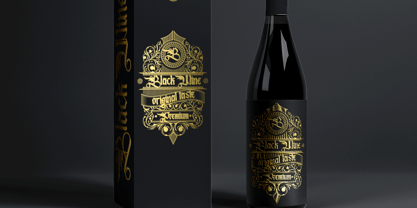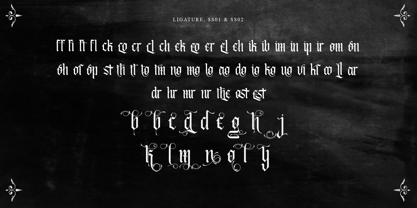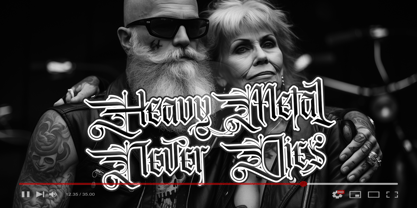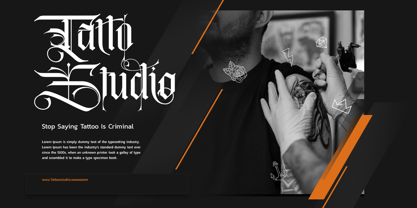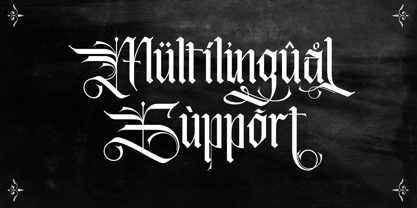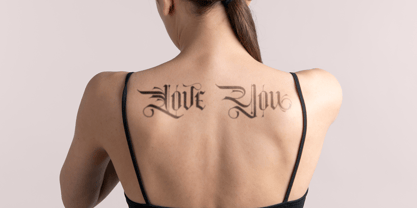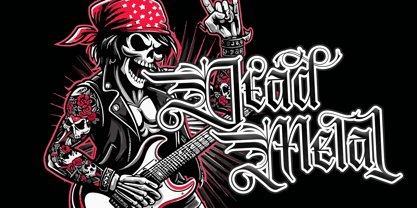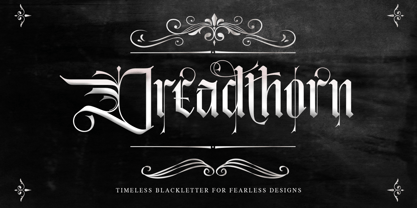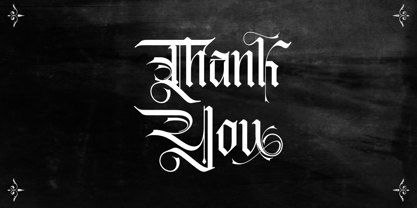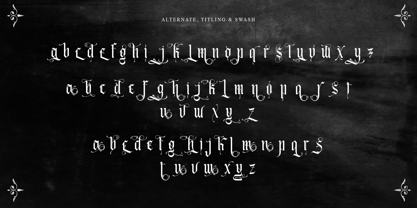
Dreadthorn
by Letterara
The Dreadthorn Font Family was designed by Thomas Aradea and published by Letterara. Dreadthorn contains 2 styles and family package options. More about this family
Step into the shadowed allure of Dreadthorn, a blackletter font that radiates gothic majesty and untamed power. Designed with sharp, intricate strokes and a fierce presence, Dreadthorn captures the essence of mystery and strength. Perfect for album covers, dark branding, cinematic titles, and striking posters, this font demands attention and leaves a lasting impression. Whether you're crafting bold headlines or iconic logos, Dreadthorn transforms your creations into works of gothic brilliance. Unleash the untamed spirit of design with Dreadthorn—where elegance meets raw dominance
Designers: Thomas Aradea
Foundry: Letterara